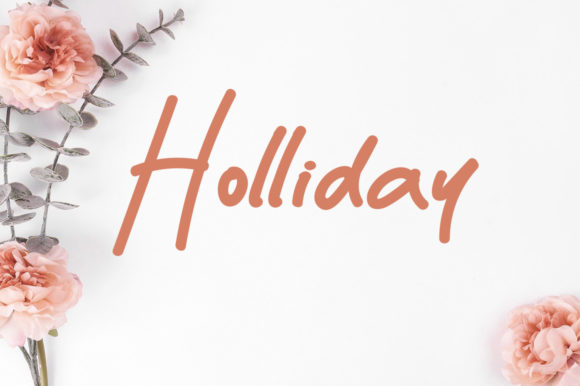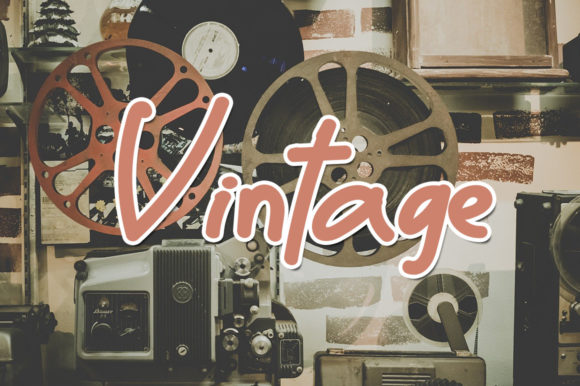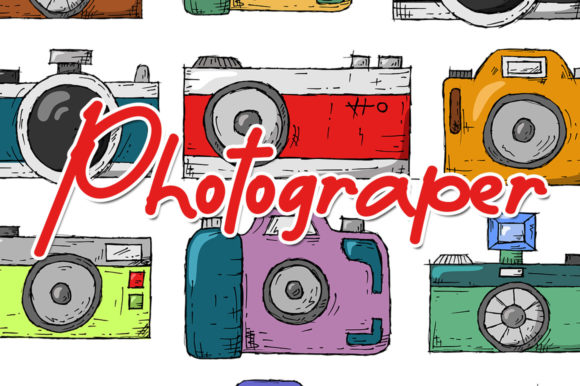
The Quest for the Perfect Font: Discovering Better Day
I’ll never forget the struggle I faced while working on a wedding invitation project. My client wanted an elegant and refreshing design, but I was stuck with a bland, generic font that just wouldn’t cut it. I scoured the internet for hours, trying out font after font, until I stumbled upon Better Day – a lovely and delicate script font that exuded elegance and class. It was love at first sight! 💕
A Personal Review of Better Day
• ✨ Elegant and refined: Better Day adds a touch of sophistication to any design.
• ✅ Highly legible: Even at small sizes, Better Day remains clear and easy to read.
• 💫 Versatile: Perfect for wedding invitations, branding, and packaging designs.
• 🎨 Beautiful swashes and flourishes: Adds a creative and artistic touch to your work.
While Better Day is an amazing font, there are a few things to keep in mind:
• ⚠️ Limited character set: Better Day might not have all the characters you need, so be sure to check the font specs before using it for a project.
• 🤔 Not ideal for body text: Better Day is best used for headings and titles, as it may get too ornate for longer blocks of text.
The Story Behind Better Day
Better Day was crafted with love by a talented type designer who wanted to create a font that would bring joy and elegance to designs. Inspired by classic script fonts and refined with modern touches, Better Day is the perfect blend of old and new.
What is the best use for Better Day? Better Day is perfect for wedding invitations, branding, and packaging designs where an elegant and refined look is desired.
Is Better Day suitable for body text? No, Better Day is best used for headings and titles. For longer blocks of text, a more legible font is recommended.
Does Better Day have OpenType features? Yes, Better Day includes OpenType features like swashes, flourishes, and stylistic alternates.